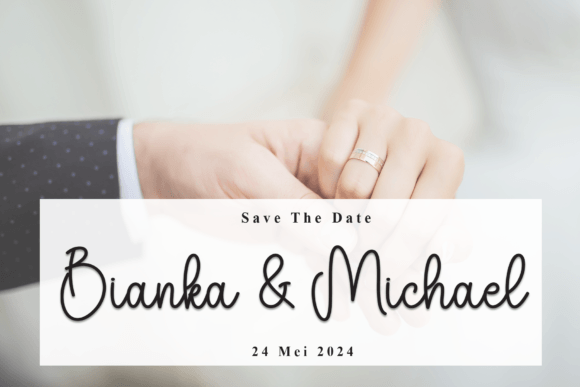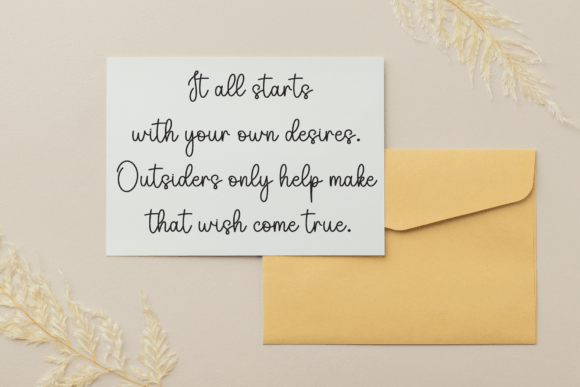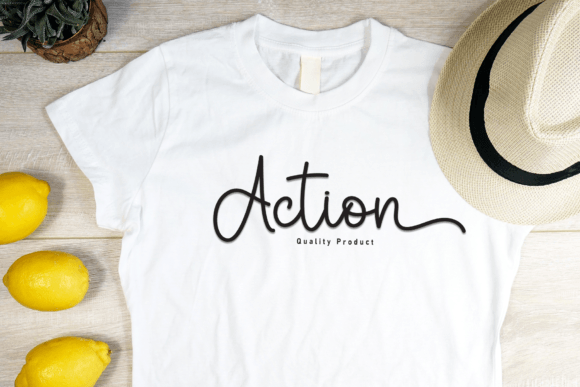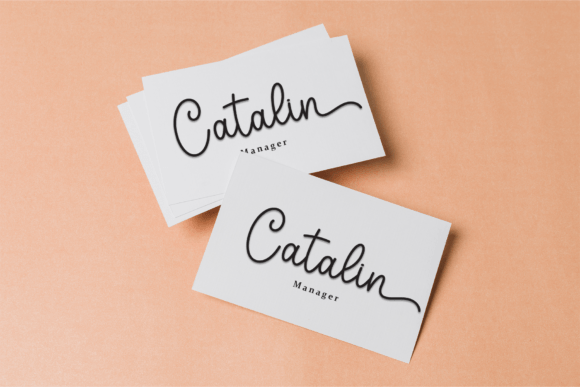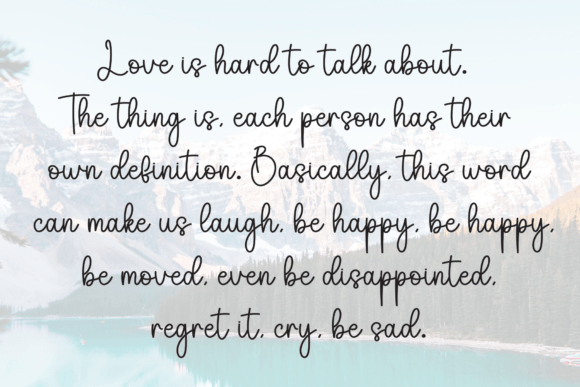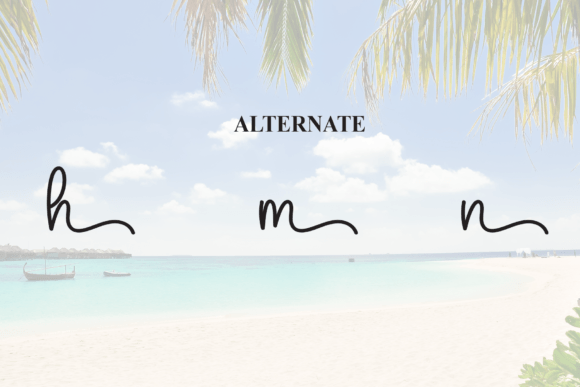
Introducing Beach Font: The Sweet and Friendly Handwritten Font for Your Creative Projects
Are you tired of using the same old fonts for your designs? Look no further! Beach Font is a beautiful, handwritten font that is sure to add a touch of sweetness and friendliness to your projects. With its natural and unique style, Beach Font is incredibly versatile and can be used for a wide range of designs, from beach-themed projects to more abstract and creative endeavors.
Beach Font is a dream come true for designers and crafters who are looking for a font that is both visually appealing and easy to use. Its handwritten style gives it a personal and approachable feel, making it perfect for projects that require a touch of warmth and personality. Whether you’re creating a logo, a poster, or a digital product, Beach Font is sure to make your design stand out.
What Makes Beach Font So Special?
So, what sets Beach Font apart from other fonts? Here are just a few things that make it so special:
- Unique and Natural Style: Beach Font has a one-of-a-kind style that is both natural and effortless. Its handwritten feel makes it perfect for projects that require a personal touch.
- Highly Versatile: Beach Font is incredibly versatile and can be used for a wide range of designs, from beach-themed projects to more abstract and creative endeavors.
- Imagination is the Only Limit: With Beach Font, the possibilities are endless! Its unique style and versatility make it the perfect font for designers and crafters who like to push the boundaries of creativity.
- Pair it with Other Fonts: Beach Font pairs well with a variety of other fonts, making it easy to create unique and interesting combinations.
- Use it for Headings and Titles: Beach Font is perfect for headings and titles, adding a touch of personality and whimsy to your designs.
- Add it to Your Digital Products: Beach Font is a great addition to digital products, such as printables, planners, and journals.
- Use it for Branding and Marketing Materials: Beach Font is perfect for branding and marketing materials, such as logos, brochures, and business cards.
- Experiment with Different Sizes and Colors: Beach Font looks great in a variety of sizes and colors, so don’t be afraid to experiment and find the perfect combination for your design.
- Use it in Combination with Other Design Elements: Beach Font pairs well with a variety of other design elements, such as graphics, illustrations, and textures.
- Make it Your Own: Beach Font is a versatile font that can be used in a variety of ways, so don’t be afraid to make it your own and add your own personal touch.